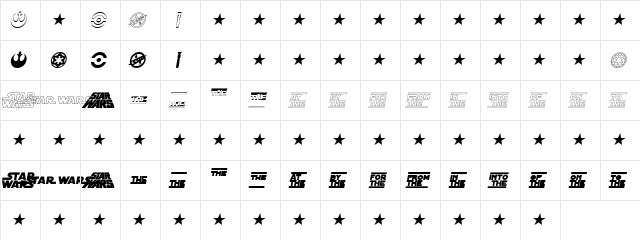
Distant Galaxy Symbols Italic
Design Context for Distant Galaxy Symbols Typeface
Distant Galaxy Symbols is a composed and adaptable typeface that performs quietly and consistently across a wide range of design contexts. The dynamic lean of this cut emphasises speed and emphasis in any layout.
Pro Tip: Try Distant Galaxy Symbols for annotation and caption copy alongside an upright companion — the contrast in angle creates a dynamic but ordered typographic system.